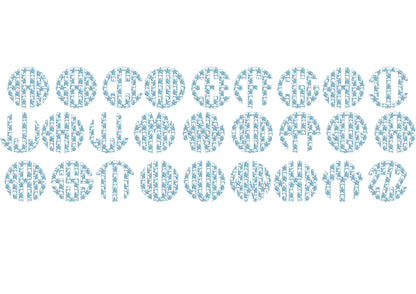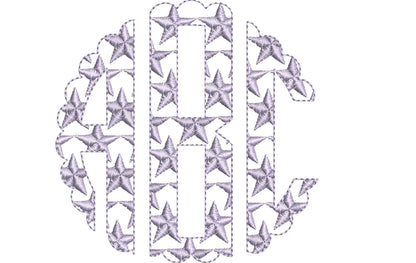
Starred Patriotic Scalloped Circle Monogram
Or click to open the linkA three-letter circle monogram with stars and a scalloped edge. Great for 4th of July shirts, patriotic pillows, bags and gifts.
Letters A to Z come as left, center and right pieces that form a round three-letter monogram. Ten sizes: 2, 2.5, 2.7, 3, 4, 4.5, 5, 5.5, 6 and 7 inches.
- Starry scalloped circle monogram font
- Left, center and right letters A to Z
- 10 sizes, 2 to 7 in